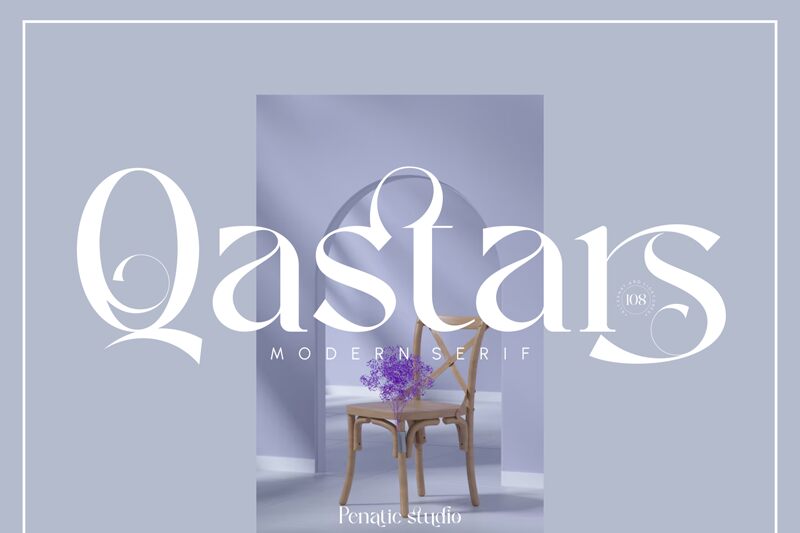
Qastars, designed by Penatic Studio, is a striking semi-light serif font that blends timeless elegance with modern sophistication. Its refined curves and delicate serifs make it perfect for projects requiring a touch of class and professionalism. Whether you're designing elegant invitations, crafting exquisite branding materials, or creating compelling editorial layouts, Qastars is the ideal choice to add an air of refinement. With its versatile nature and legibility at smaller sizes, this font is also suitable for websites and blogs seeking to establish a polished online presence. Let Qastars elevate your designs to new heights of sophistication.